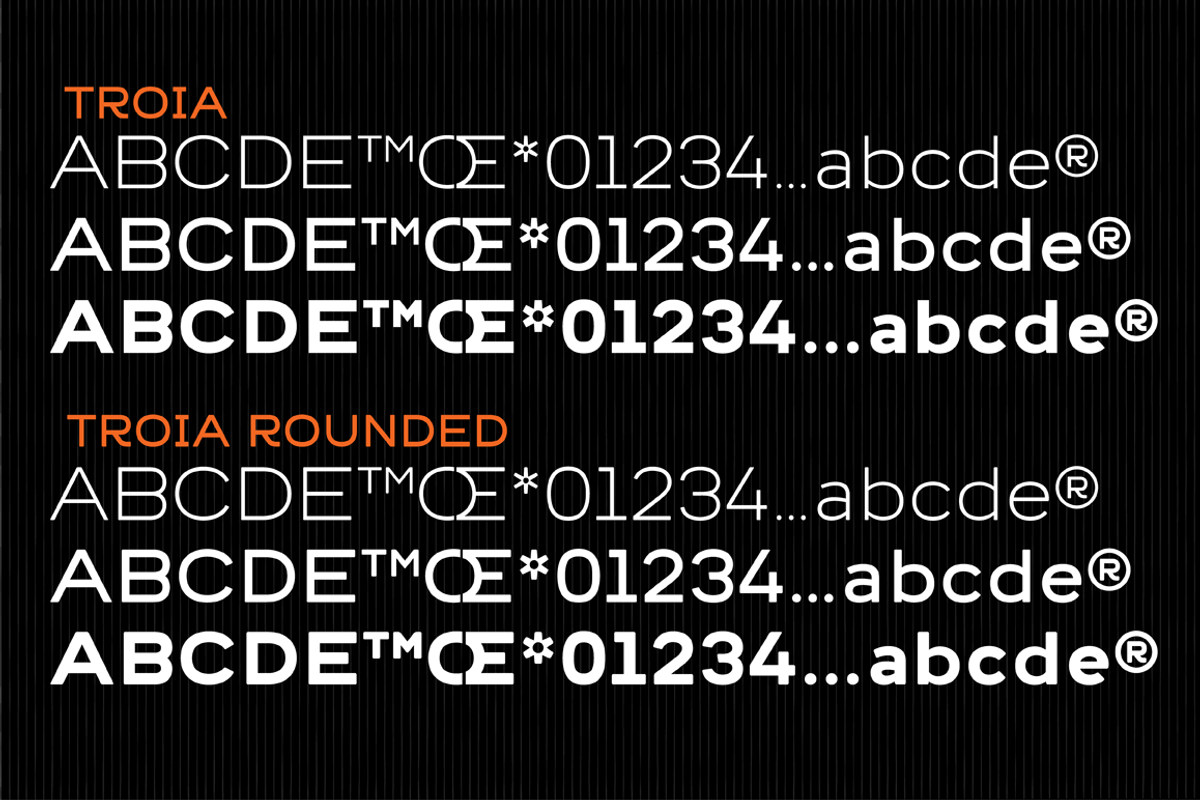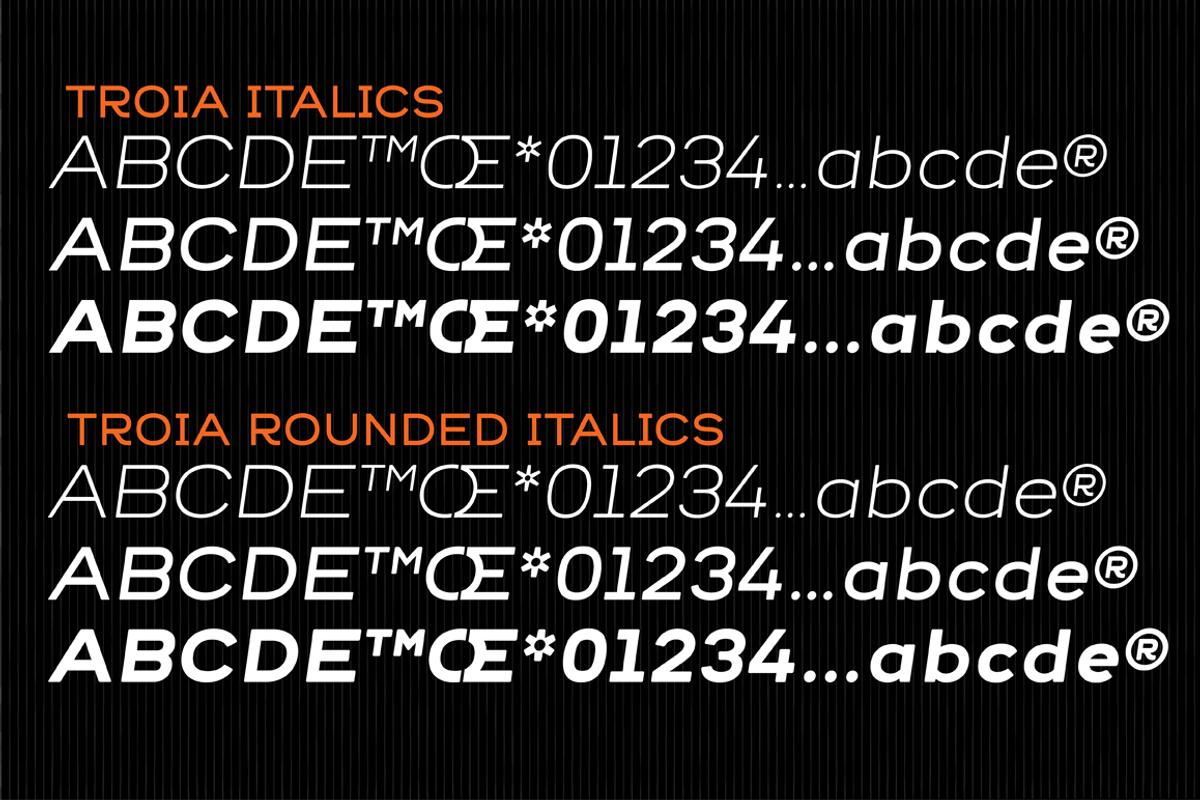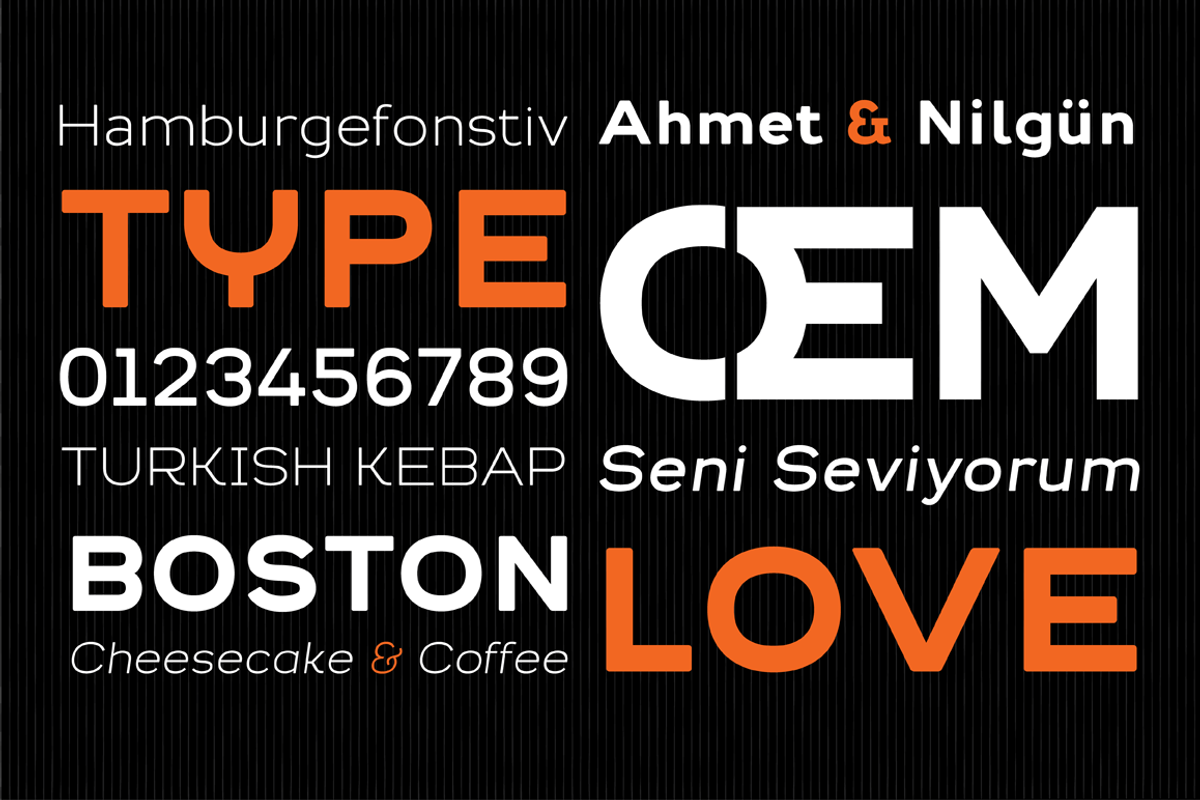
Troia Font Family
Troia Font Family by Ahmet Altun is a font selected for branding, posters, packaging, typography.
Why Troia Font Family is worth a look
Troia Font Family by Ahmet Altun fits naturally into Branding, posters, packaging, typography.